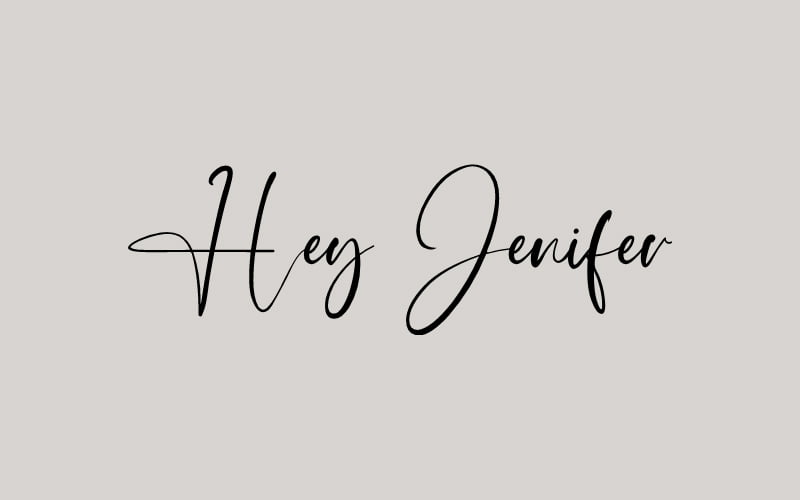
Hey Jenifer Font
Hey Jenifer Script Font is a soft and sweet calligraphic typeface, with the characters dancing along the baseline. It has a casual and elegant touch. It can be used for various purposes such as logos, wedding invitations, titles, t-shirts, letterheads, nameplates, labels, news, posters, badges etc.
Hey Jenifer Handwritten Script Font